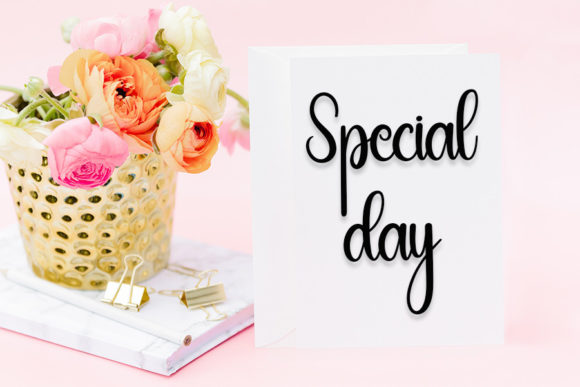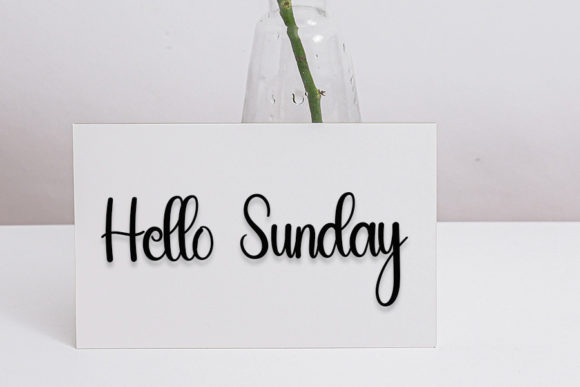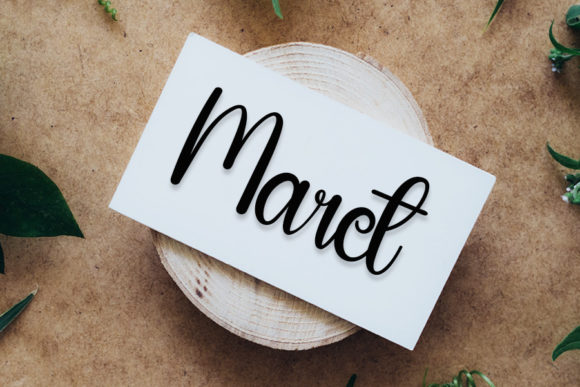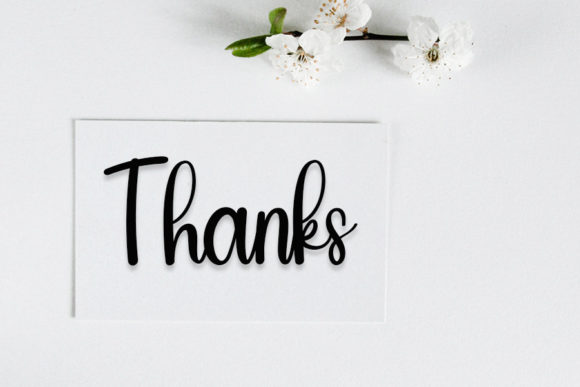
Introducing Calendar Font: A Timeless Classic with a Contemporary Twist
Are you looking for a font that exudes elegance and sophistication? Look no further than Calendar Font, a stylish handwritten font that brings a touch of classic calligraphy to the modern era. Inspired by timeless classics, Calendar Font boasts a contemporary atmosphere and impeccable form, making it perfect for a wide range of design projects.
The Inspiration Behind Calendar Font
Calendar Font draws inspiration from traditional calligraphy, with a focus on clean lines, flowing curves, and precise letterforms. The font’s creator aimed to capture the essence of classic calligraphy and infuse it with a modern twist, resulting in a unique and stylish font that’s perfect for designers and crafters.
Key Features of Calendar Font
- Handwritten style: Calendar Font features a beautiful, handwritten style that’s perfect for adding a personal touch to your designs.
- Contemporary atmosphere: Despite its classic inspiration, Calendar Font has a distinctly modern feel that’s perfect for contemporary designs.
- Impeccable form: The font’s precise letterforms and clean lines ensure that it looks great in a wide range of contexts, from digital designs to print materials.
- Versatility: Calendar Font is suitable for a wide range of design projects, including branding, packaging, signage, and more.
Use Cases for Calendar Font
Calendar Font’s versatility makes it perfect for a variety of design projects. Here are some use cases to consider:
- Branding and logos: Use Calendar Font to create a unique and memorable logo that stands out from the crowd.
- Wedding and event design: Add a touch of elegance to your wedding or event designs with Calendar Font’s beautiful, handwritten style.
- Packaging design: Use Calendar Font to create eye-catching packaging that reflects your brand’s personality.
- Signage and display: Calendar Font’s clear and precise letterforms make it perfect for signage and display designs.
Tips for Using Calendar Font
To get the most out of Calendar Font, here are some tips to keep in mind:
- Pair with contrasting fonts: Combine Calendar Font with a contrasting font to create visual interest and add depth to your design.
- Experiment with colors: Try out different colors and textures to add an extra layer of personality to your design.
- Pay attention to spacing: Make sure to adjust the spacing between letters and words to ensure that your design looks balanced and harmonious.
Calendar Font is a stylish and versatile font that’s perfect for designers and crafters looking to add a touch of elegance to their designs. With its timeless classic inspiration and contemporary atmosphere, Calendar Font is sure to impress. Whether you’re working on a branding project, wedding design, or packaging project, Calendar Font is a great choice.